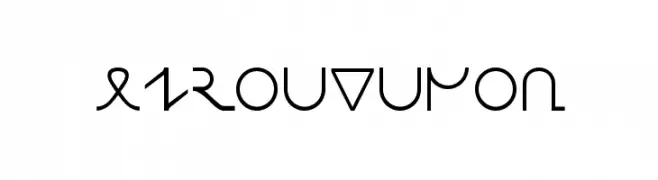
A pictogram font with peace and remembrance-themed illustrations.
A playful, retro font inspired by vintage drugstore signage.
A decorative font inspired by intricate Mayan glyphs, featuring bold and detailed designs.
A futuristic and geometric font with clean lines and modern design.
A decorative font styled after vintage license plates, featuring bold, eclectic characters.
A bold, condensed font with a rugged, Western-inspired style.
A bold, slab serif font with a vintage Western aesthetic.
A bold, italicized Western-style font with sharp angles and strong lines.